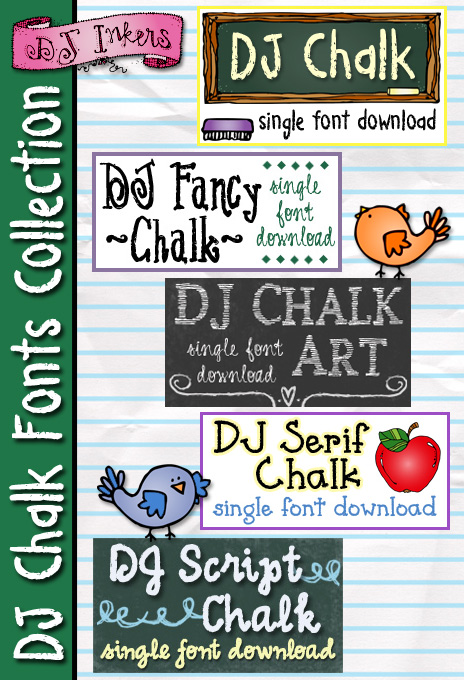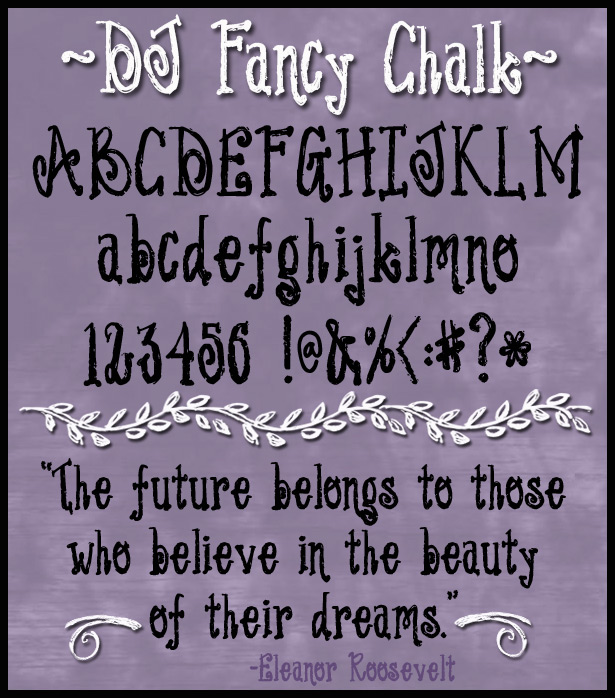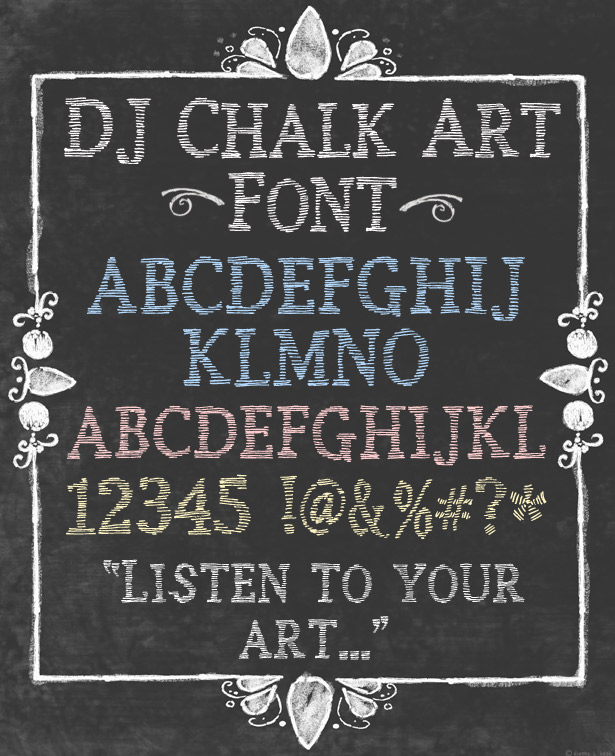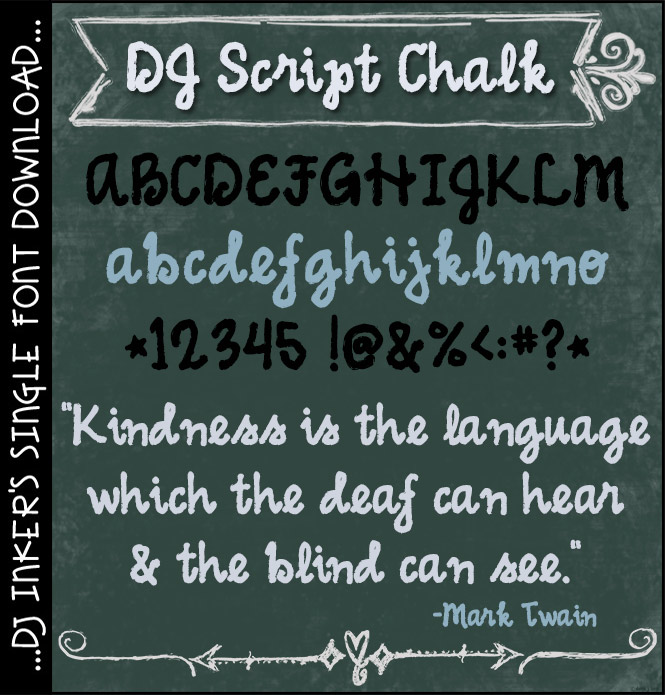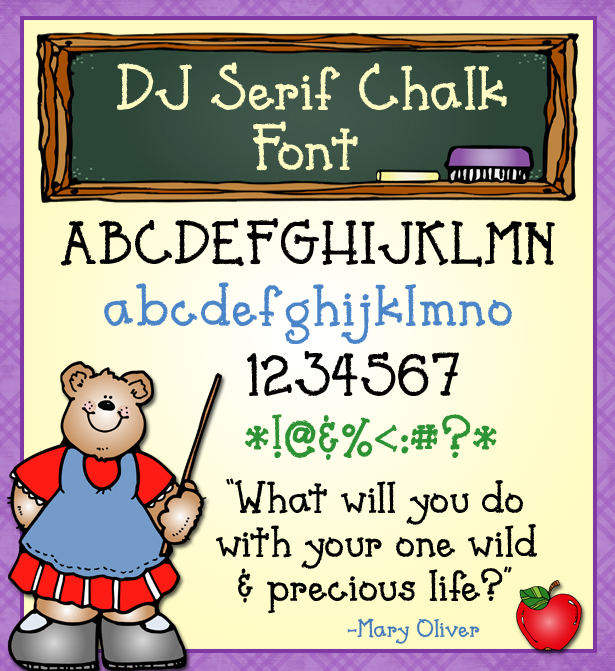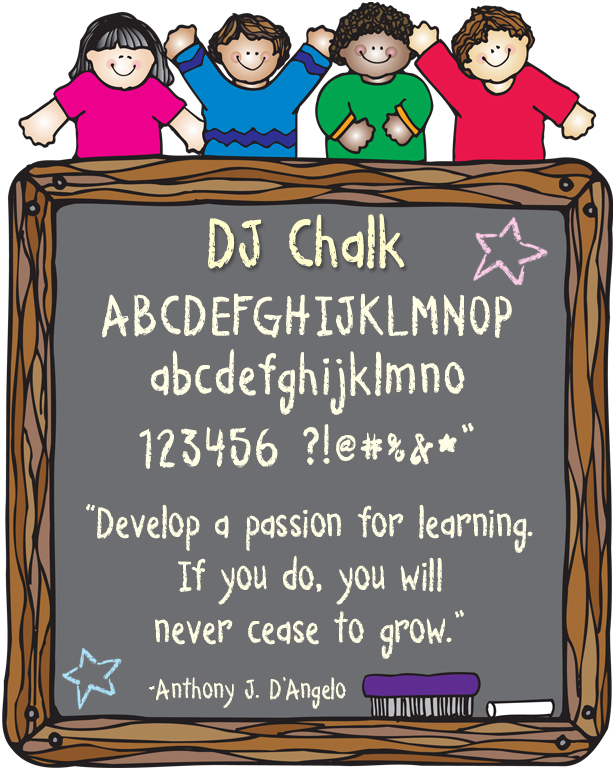
5 unique chalkboard style fonts by DJ Inkers, perfect for teachers, kids and crafting
DJ Chalk Fonts Collection Download
Chalk another one up for DJ Inkers! Now you can get 5 font-astic chalkboard fonts for one great price. Our Chalk Fonts Collection will be great for creating smiles on your projects at school, at home or at play. You'll love these fun & boldly textured fonts. Download instant smiles today!
Set includes:  DJ Chalk, DJ Chalk Art, DJ Fancy Chalk, DJ Script Chalk and DJ Serif Chalk. Also sold separately, but this set saves you a bundle!